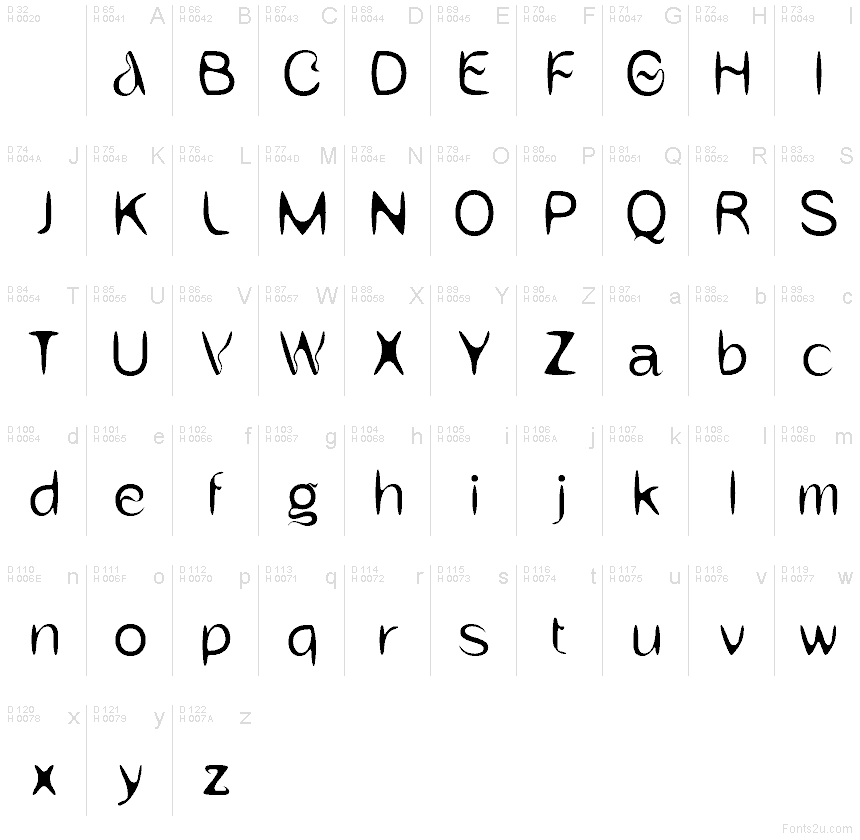
CSBonitaDrawn-Regular Demo
CS Bonita Drawn font is yet another marvelous set from Craft Supply Co. The display font has a stylish contemporary design with a unique artistic flair that can only be accomplished manually by hand. The letters have smooth transitions and fluid motions that make the visual text dynamic where it is simple to read and reference but also fun to look at.